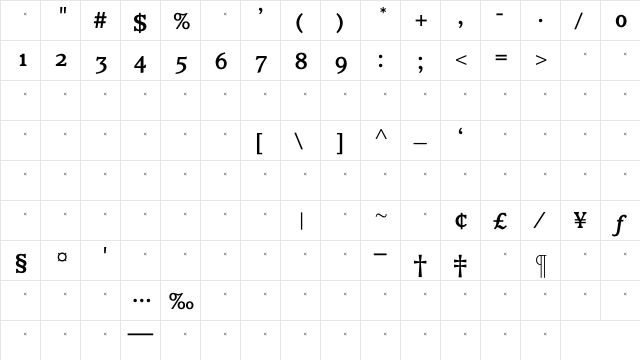
ClaremontMedOSTab Regular Font Preview
ClaremontMedOSTab Regular
ClaremontMedOSTab Regular Font Details
Design Context for ClaremontMedOSTab Typeface
ClaremontMedOSTab is a composed and adaptable typeface that performs quietly and consistently across a wide range of design contexts.